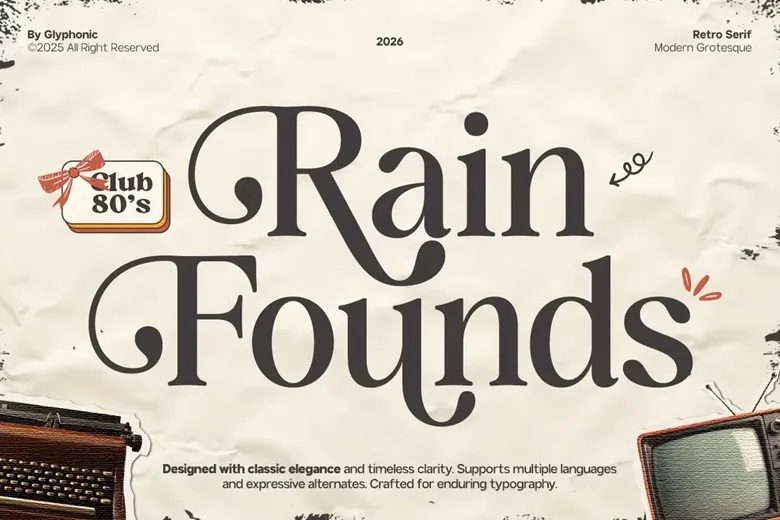
GC Rain Founds Font
GC Rain Founds is an advanced serif font which was created based on the retro classics styles and elegant classic typewriting. Rain Founds is gracefully designed and its design features include smooth curves, unique serifs, with balanced contrast, which makes the font look very elegant but vintage at the same time and up to date in the contemporary design.
Ideal in branding, fashion magazines, wedding designs, store packaging, lifestyle magazines, and artistic layouts, GC Rain Founds adds some heritage and beauty to the modern visual systems. When applied to titles of a statement or to sleek body copy, it presents a unique typographic presence that is classic and elegant.
GC Rain Founds Serif Font